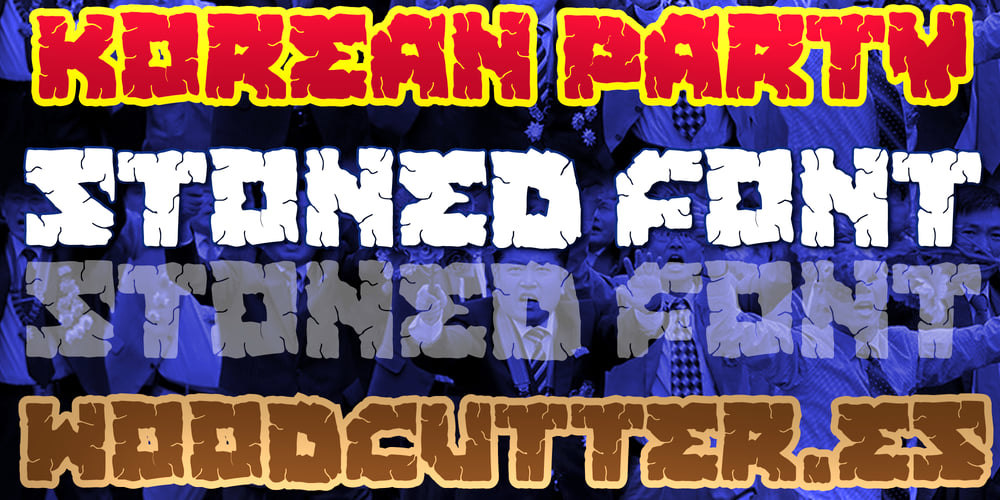
Korean Party
Korean Party font
Korean Party Font Family was designed by Jordi Manero and published by Woodcutter. Korean Party contains 1 styles and family package options. “Korean Party” is a font with a Soviet look featuring cracked uppercase letters, creating an impressive stone effect. Each character has a robust and solid design, evoking a strong and authoritative aesthetic. Ideal for projects that require a bold and resilient touch, this font is perfect for posters, titles, and any design that needs to stand out with a striking and retro appearance. Its worn and cracked look adds a unique texture that brings depth and authenticity to any text.